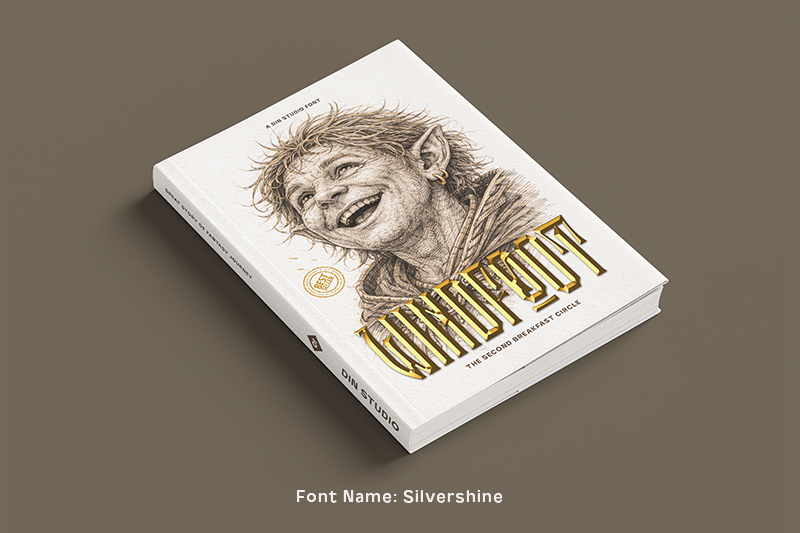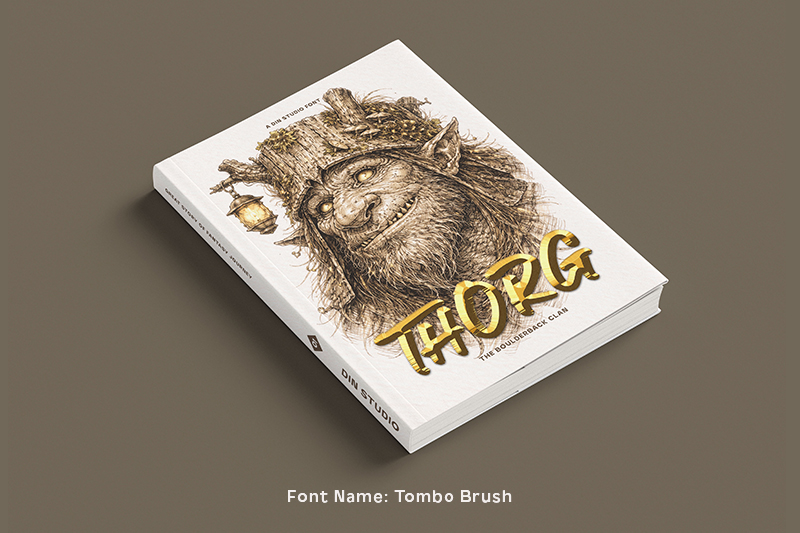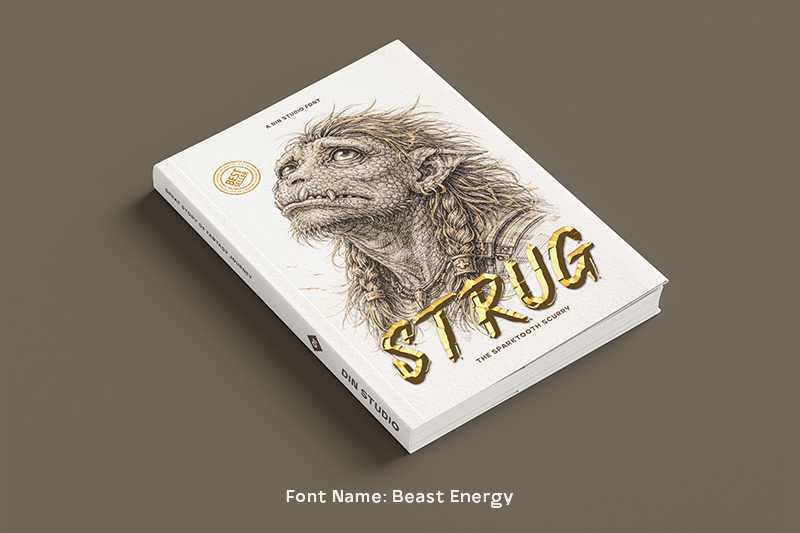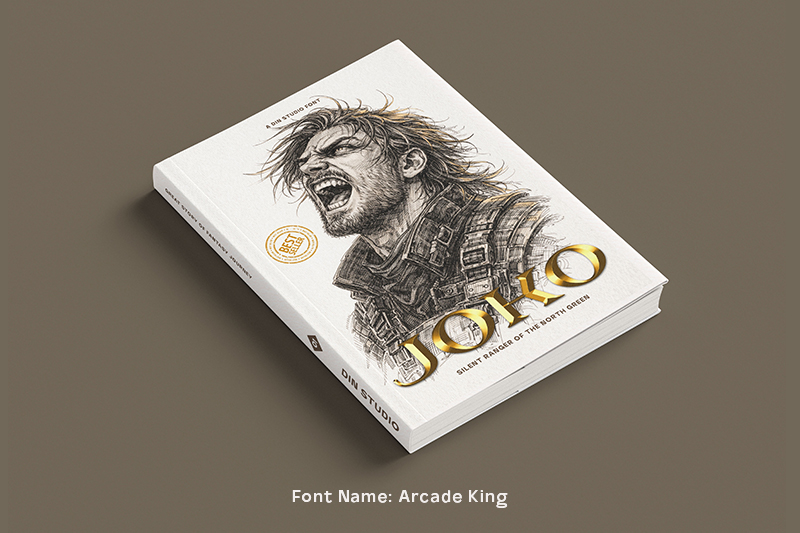
Fantasy novels are appealing not only for their plots and imaginative worlds but also for the visuals created by the words. Typography serves as an initial element in creating a visual perception, giving off a sense of imagination, epicness, and mystery long before readers begin to engage with the story.
In fantasy novel visuals, choosing the right font is an essential part of creating identity and strengthening the story atmosphere. Each type of font has its characteristics. Some represent an ancient world and magic elements, while others are suitable for stories with big conflicts inside. That’s why typography is not just a mere decorative element.
This article discusses the best fonts for fantasy novels and explores several font selections important to supporting the characters and environments in fantasy novels. Furthermore, this article guides writers and designers on how to align the novel’s visual appearance with the developing narrative strength.
As the first visual element that welcomes the readers, the typography in the covers of fantasy novels needs to be selected carefully. In this context, Spirits Burner is a perfect font for that, as it has a strong and solid visual character. The letterforms are sharp with a tough structure, representing power, conflict, and a legendary fantasy world.
The letter details resemble textured metal strokes, reinforcing the epic impression while creating harmony with the dragon illustration on the cover above. With its dominant and easily recognizable character, this font effectively strengthens the identity and branding value of the cover.
Redwinger is a font that highlights an elegant, sharp, and classic character. This font combines solid lines with smooth curves, presenting a balance between power and visual poise. Additionally, its letterforms are harmonious with the elf illustration we can see on the cover, representing calmness and a mysterious vibe.
The uniqueness of Redwinger relies on its serif details and sharp, controlled ends. As a great font for fantasy novels, Redwinger can perfectly build a visual identity that is emotional and full of narrative, especially for heroic, ancient stories focusing on the mental conflict of the main character.
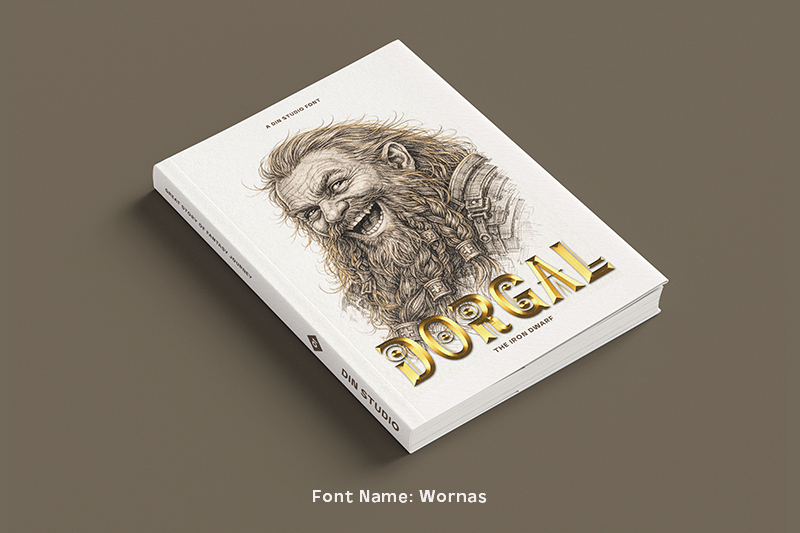
The covers of fantasy novels featuring a character with a fierce look need typography that screams power. Wornas possesses the ideal characteristics for this purpose, thanks to its bold, tough, and masculine letterforms. The structure of the letter is solid and sharp, evoking the physical power of a character from a tough fantasy world.
The Wornas font, which harmonizes with the character illustrations on the cover, creates a strong visual unity between typography and illustrative elements. With a striking and easily recognizable appearance, this font effectively reinforces visual identity and enhances the branding appeal of fantasy novel covers.
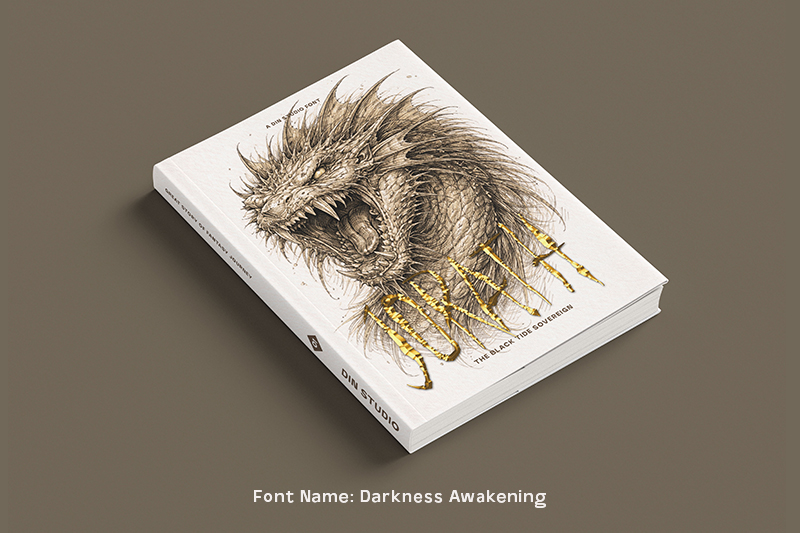
The covers of fantasy novels with a scary and tense story need typography for the title, which looks just as scary. Darkness Awakening highlights irregular lines with sharp ends that represent threats, terror, and a dark atmosphere in the fantasy world. The uniqueness of this font lies in its letter silhouettes, which resemble rough strokes or wild organic elements, creating a brutal and intense feel.
In the setting of fantasy novels, Darkness Awakening creates an excellent dark and dramatic mood, particularly for stories about darkness, terror, and deep horror. Its use in the title captures attention at first glance and clearly affirms the fantasy genre.
Right when our eyes see the title, we can see the Arcade King font with its glorious and wise impression. This font plays a role as a visual gate that welcomes the readers into the heroic fantasy world. Its bold, tough-structured letterforms are dominant and visually appealing.
The Font Arcade King is very suitable for use in fantasy novels, with its character letters representing strength and courage. Using it in the title helps build an epic atmosphere from the beginning of the story. Additionally, this font strengthens the visual identity of the novel and enhances the professional impression of the cover design.
Next, we have Black Vale. It is a font that evokes a dramatic impression, strengthening the identity of the fantasy world. Its letterforms are thin yet solid, giving off a mysterious, classic fantasy vibe. As seen in the preview above, the use of the Black Vale font is harmonious with the character illustrated there, especially when it is written with a gold color.
This font has a clean and proportional letter structure, making it easy to combine it with various visual effects without losing its originality. In fantasy novels, Black Vale is effective in building a luxurious and imaginative atmosphere for the story. As a result, the story will have a strong visual identity, great appeal, and a professional-looking book cover.
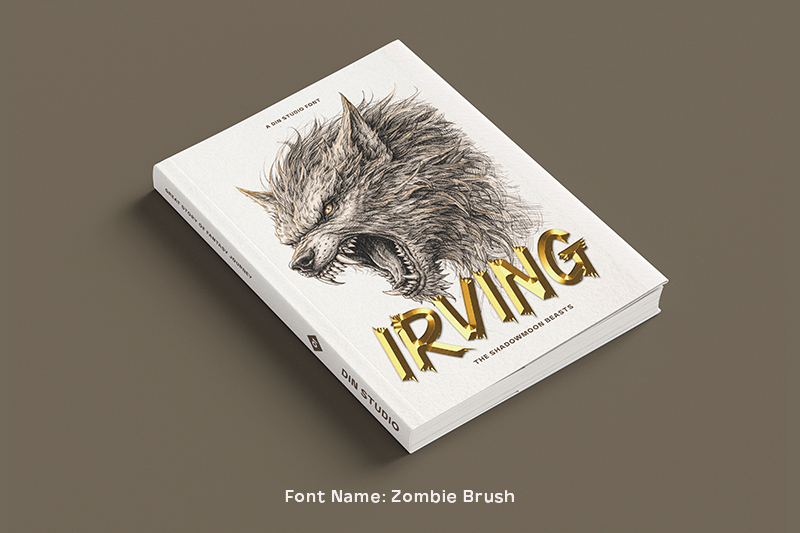
Writers and designers need to carefully select fonts to align with the narrative, illustrations, and characters of the story. The right typography choice will support the visual strength of the title and enhance the overall appeal of fantasy novels.